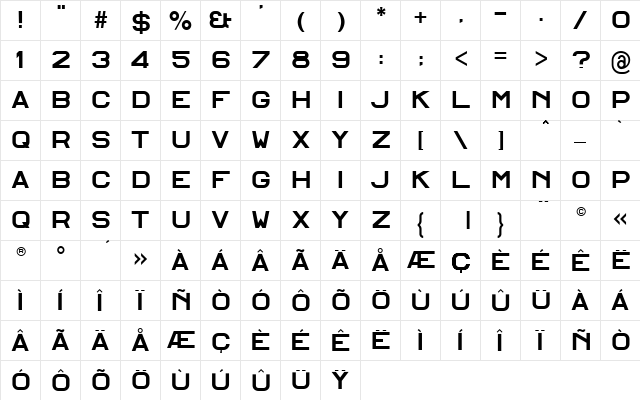
Alfphabet IV
| Foundry | OSP (from Hammerfonts) |
| Copyright | Copyright (c) 2007-2010, OSP http://ospublish.constantvzw.org) The Alfphabet family is based on the Belgian road signage (1945-1975, originally from 3M system working for the Marshall plan after the end of the war). Alfphabet IV was redrawn by Pierre Huy |
Design Context for Alfphabet Typeface
Alfphabet takes a measured approach to typography — its balanced proportions and neutral character make it a reliable workhorse for both digital and print work.